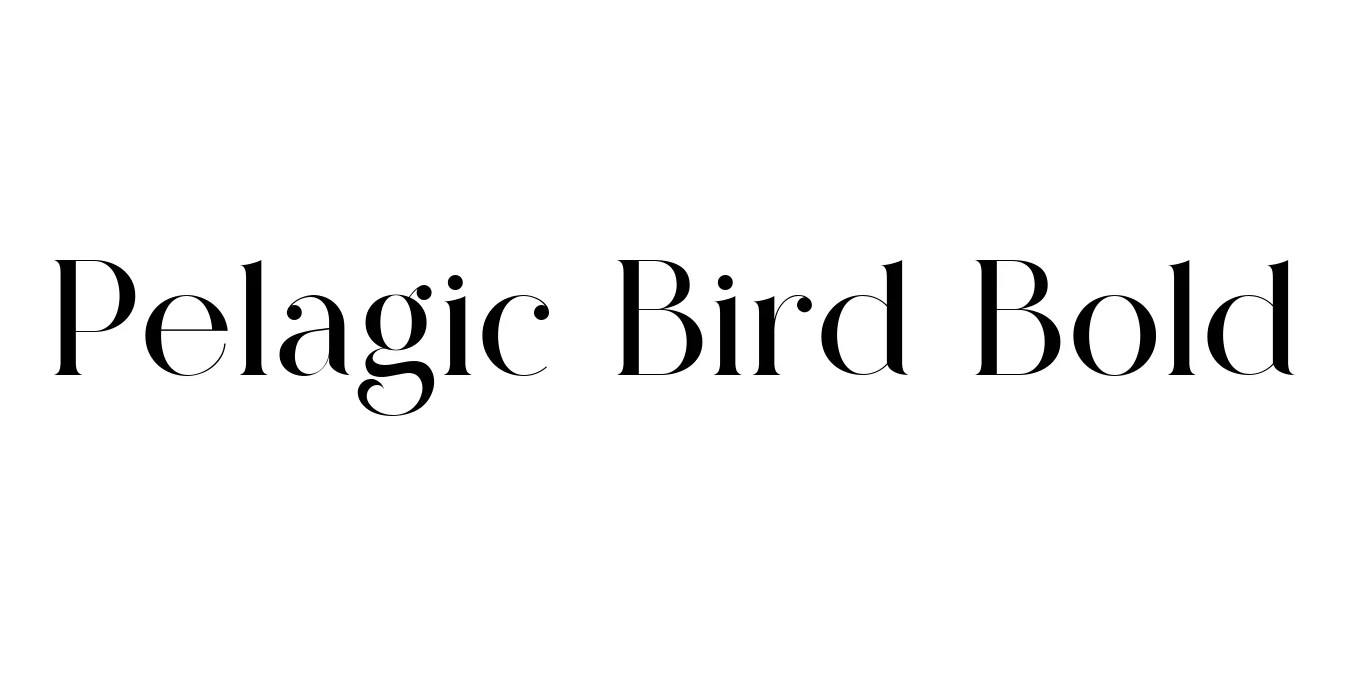
Pelagic Bird Bold
Designed by Skyline Type Foundry
| Category | Display Serif |
Pelagic Bird Bold is a striking display typeface designed to capture the elegance and strength of oceanic travel and maritime heritage. Its bold weights feature high contrast and sharp terminals, reminiscent of classic 20th-century nautical typography, offering a blend of traditional craftsmanship and modern digital precision. The letterforms are characterized by their sturdy base and fluid curves, mimicking the motion of the sea.
The font is particularly effective for editorial design and branding projects that require a sense of adventure and heritage. With its robust structure and refined strokes, it provides excellent legibility in large headlines while maintaining a unique personality that stands out in both digital interfaces and high-quality print media. It has become a favorite for designers looking to evoke a sense of coastal sophistication.
Pelagic Bird Bold Best Uses
Ideal for maritime and luxury travel brands looking for a classic, authoritative look.
Perfect for magazine mastheads and large section headers in travel or lifestyle publications.
Works exceptionally well on premium product labels, artisanal goods, and spirit bottles.